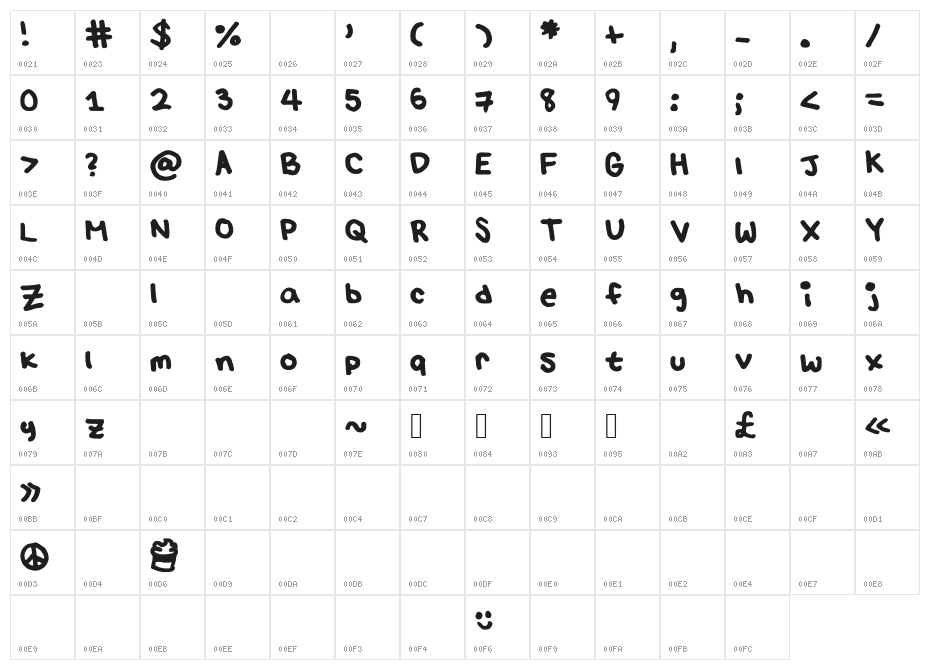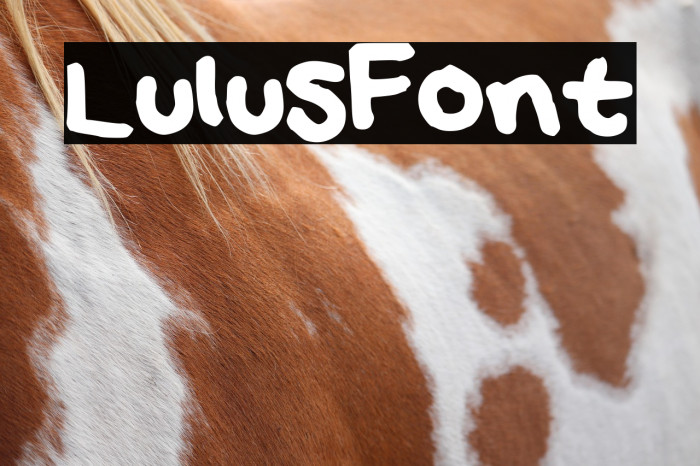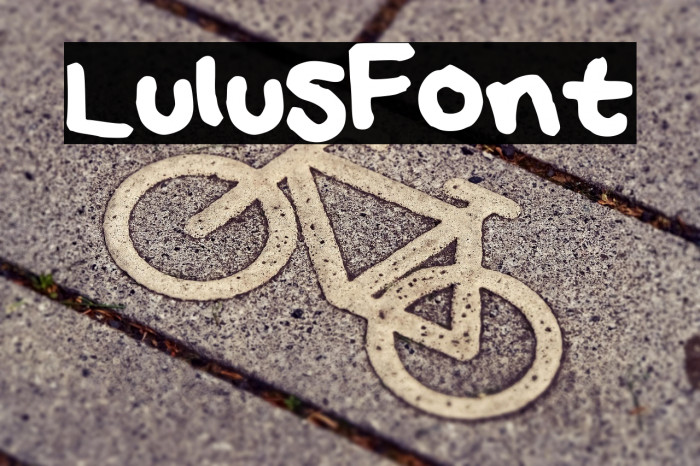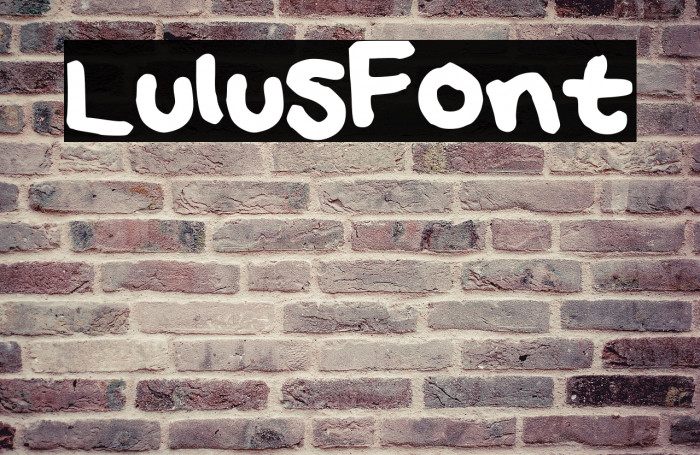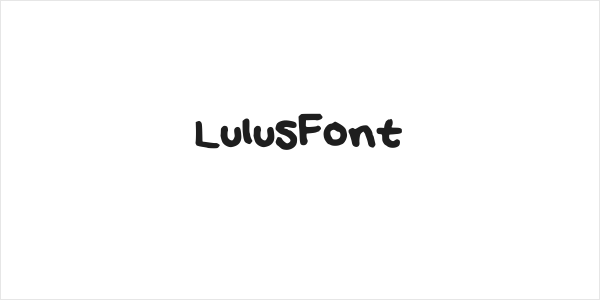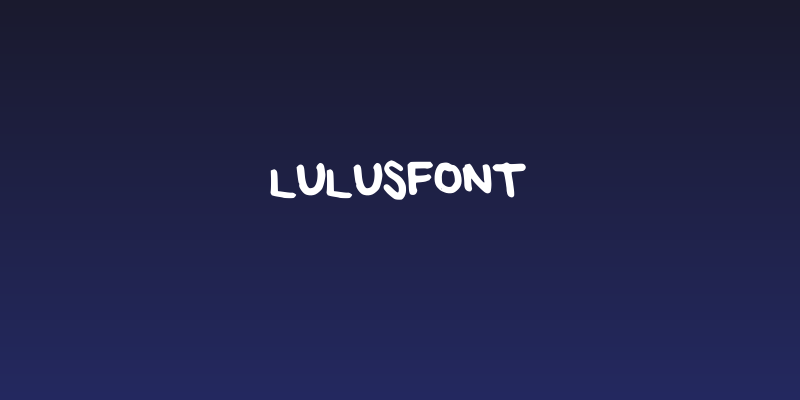
LulusFont Font
LulusFont Description
This font features a playful and bold handwritten style, characterized by its thick, rounded strokes and informal appearance. The letters have a casual, almost childlike quality, with uneven lines and a slightly irregular baseline that adds to its charm. The uppercase and lowercase letters maintain a consistent style, with the uppercase being slightly larger and more pronounced. Numbers and special characters follow the same playful design, making the font versatile for various creative projects. Its boldness ensures high readability, while the whimsical design adds a touch of fun and personality.
| Overall Style | Playful |
| Use Case | Headlines, Logos, Informal Text |
| Proposed Projects | Ideal for children's books, playful branding, greeting cards, and informal posters. |